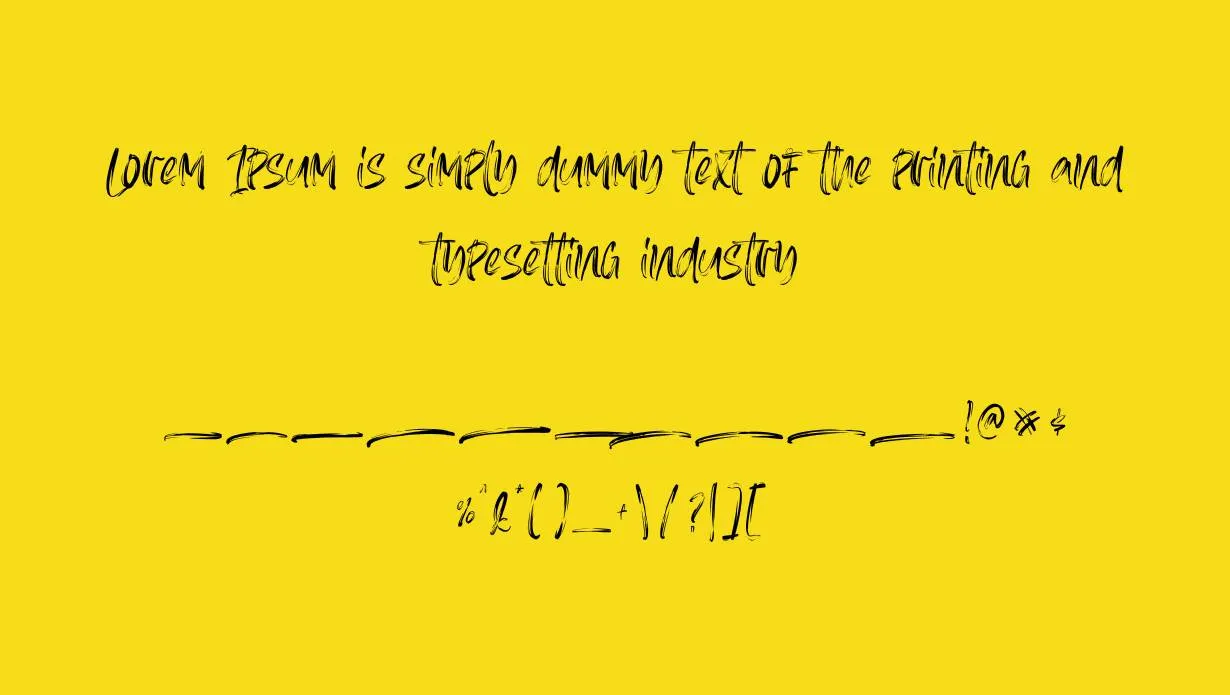
Asteriska font is like a sprinkle of stardust for your words, adding a touch of magic to your text. When you use it, your text becomes like a celestial spectacle, creating a sense of wonder. It’s perfect for creating designs that need a hint of enchantment.
Style Brush
Asteriska’s letters are like constellations in the night sky, each one contributing to the overall magical feel of your message.